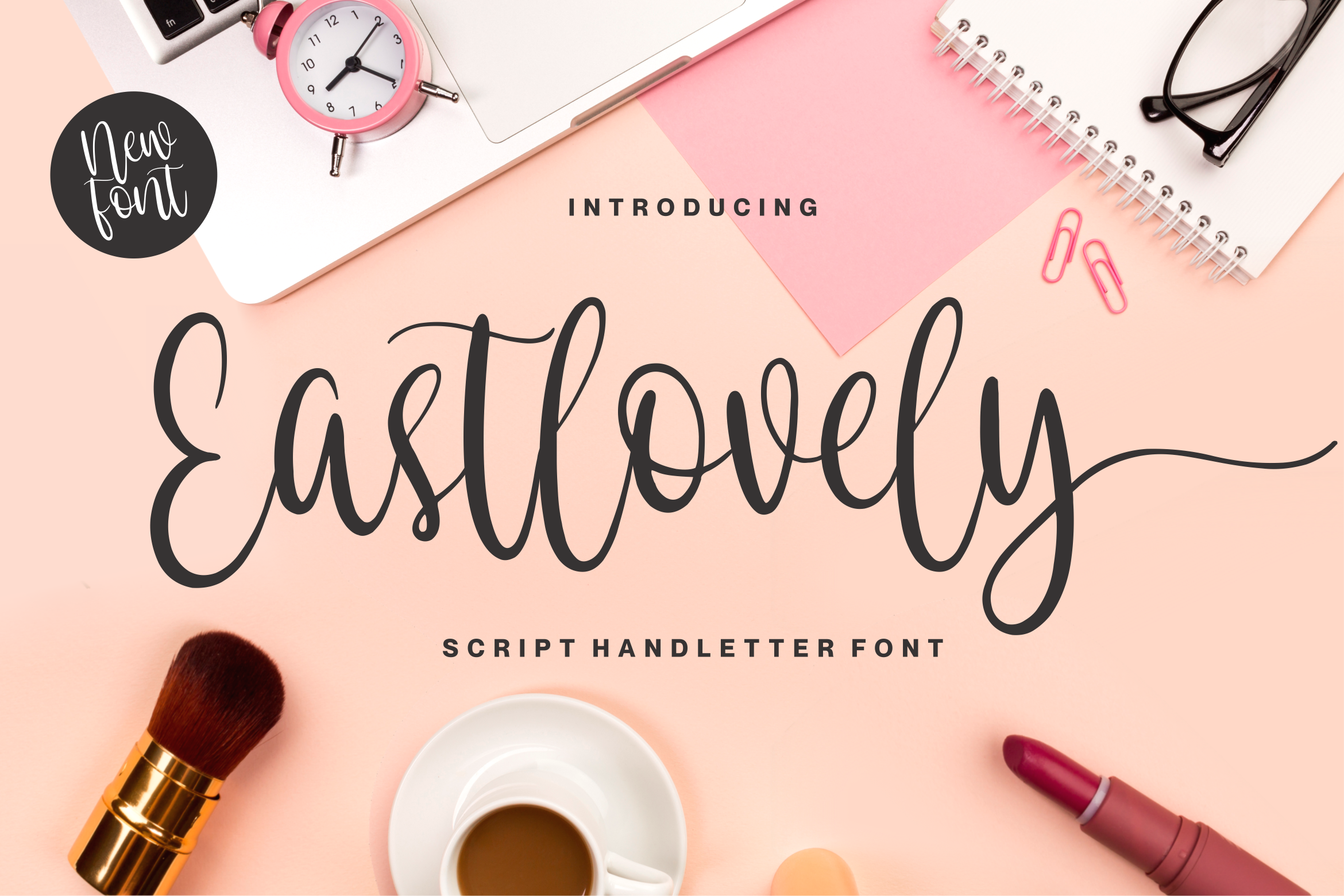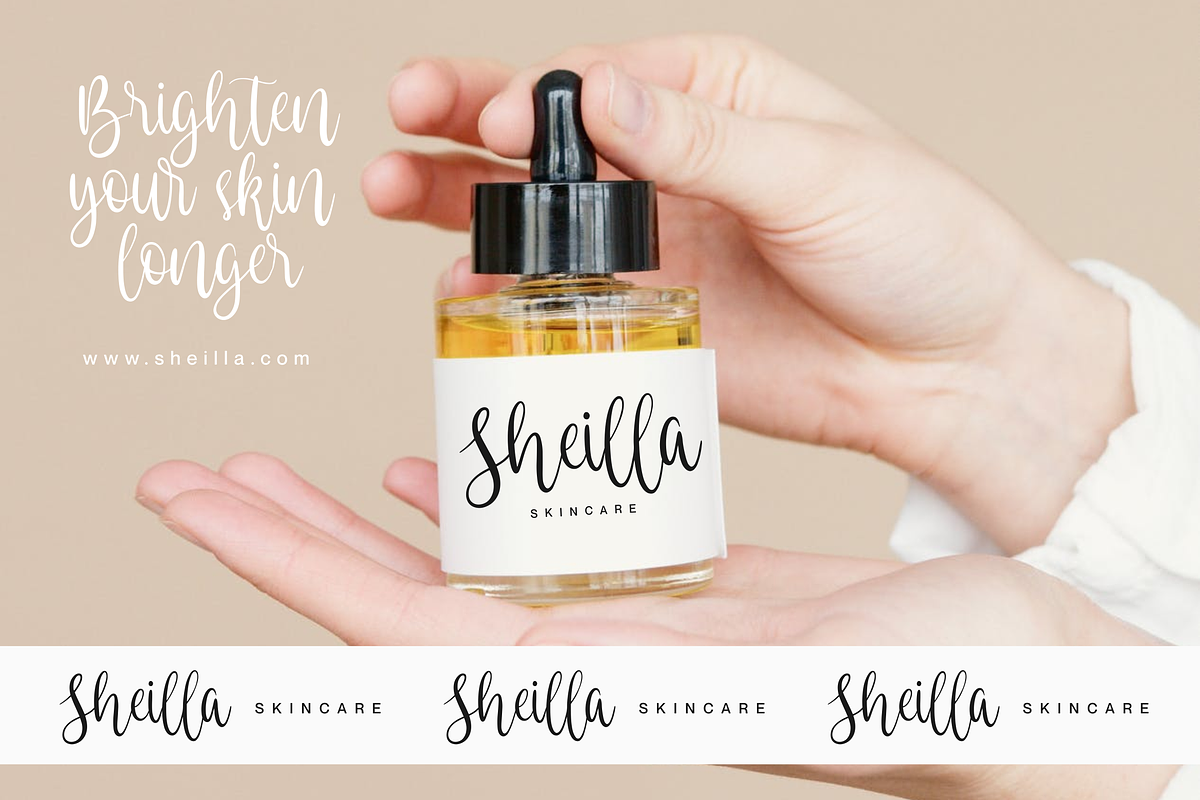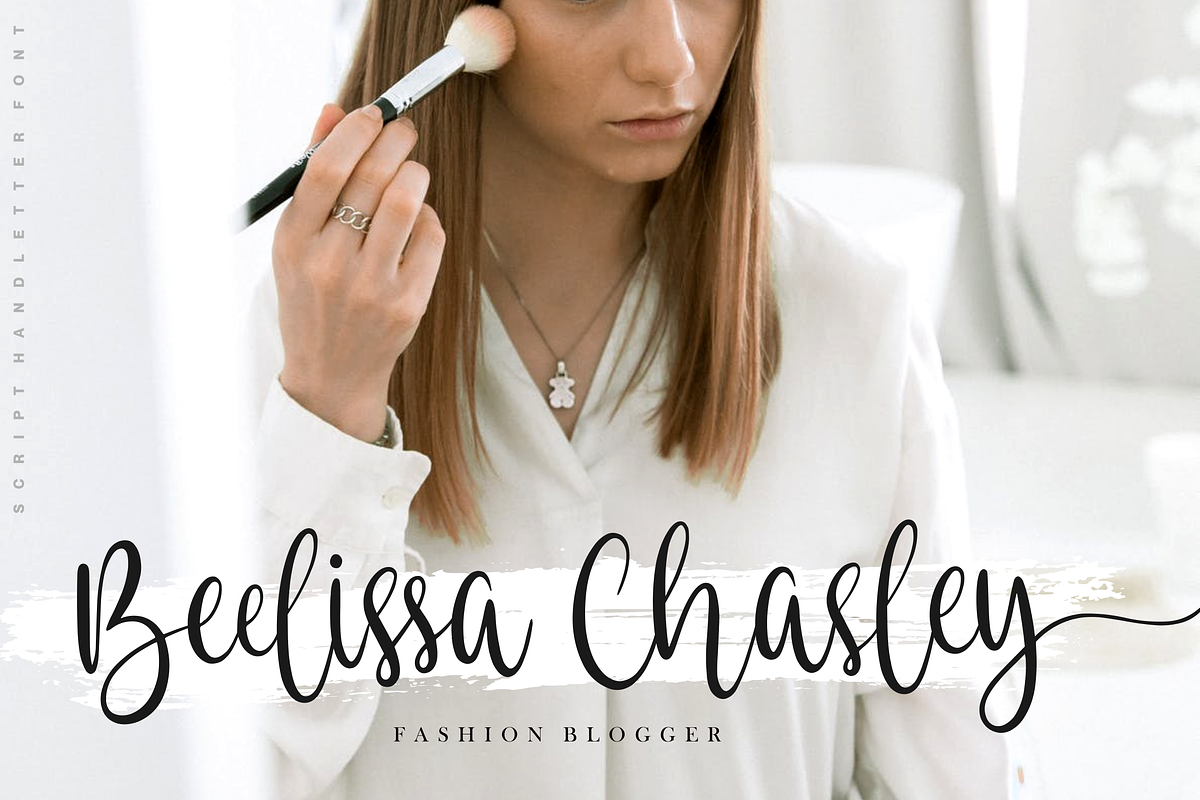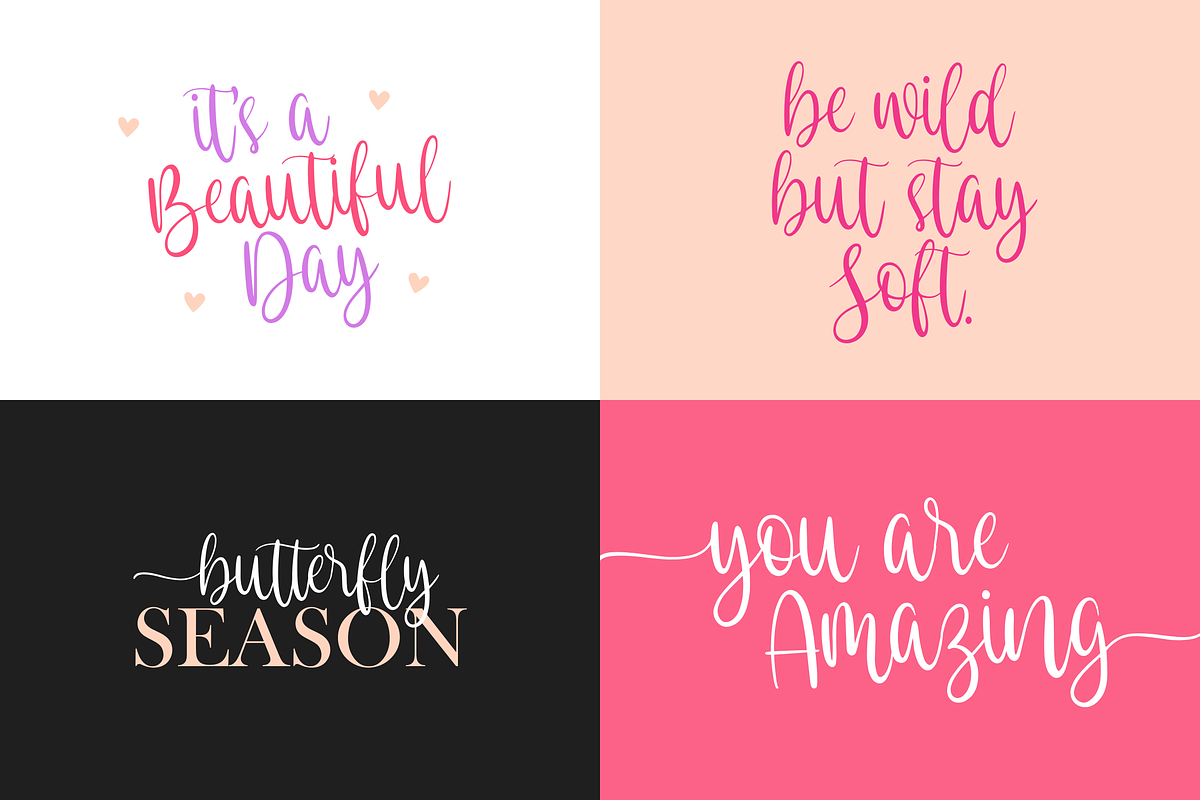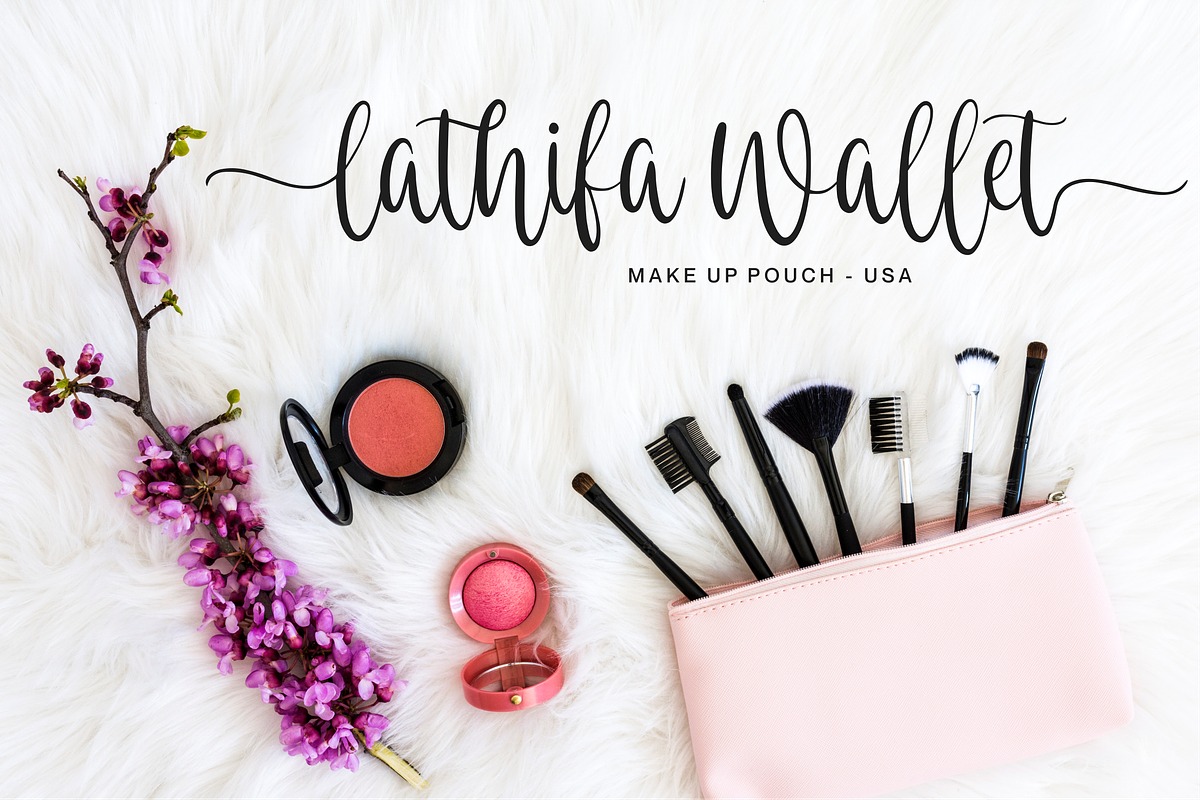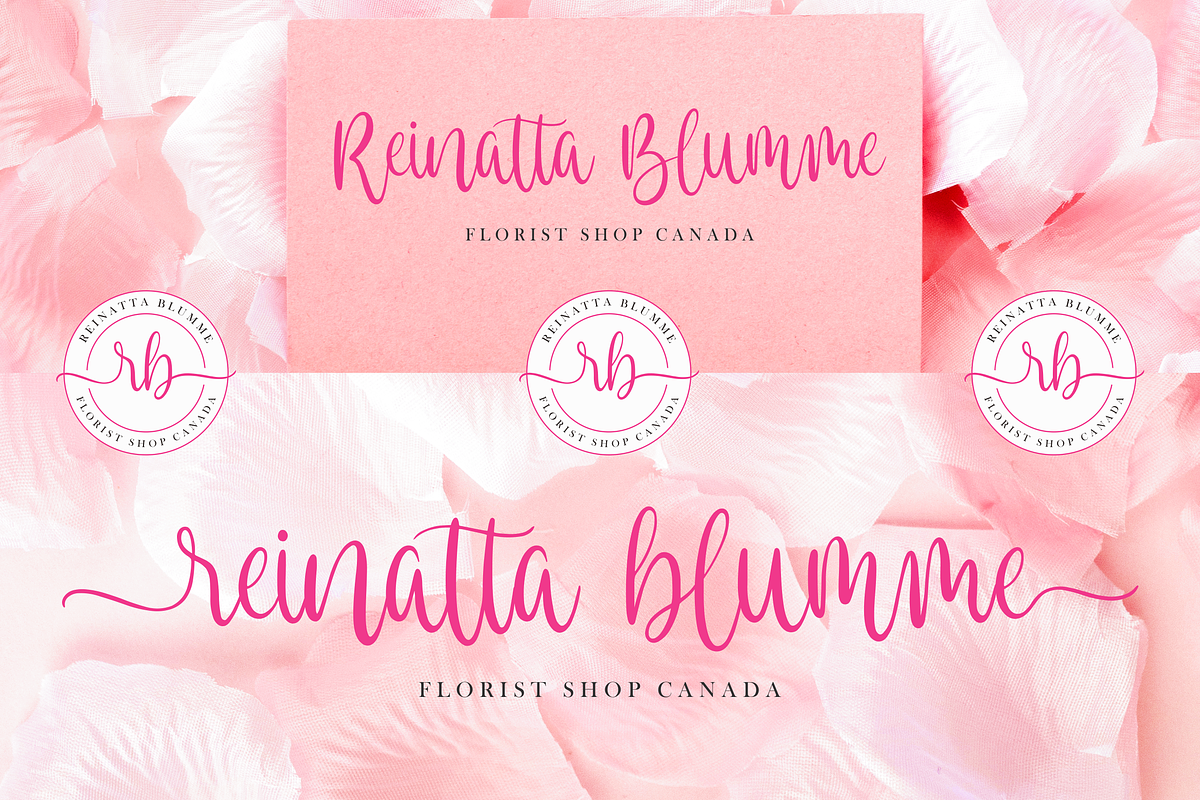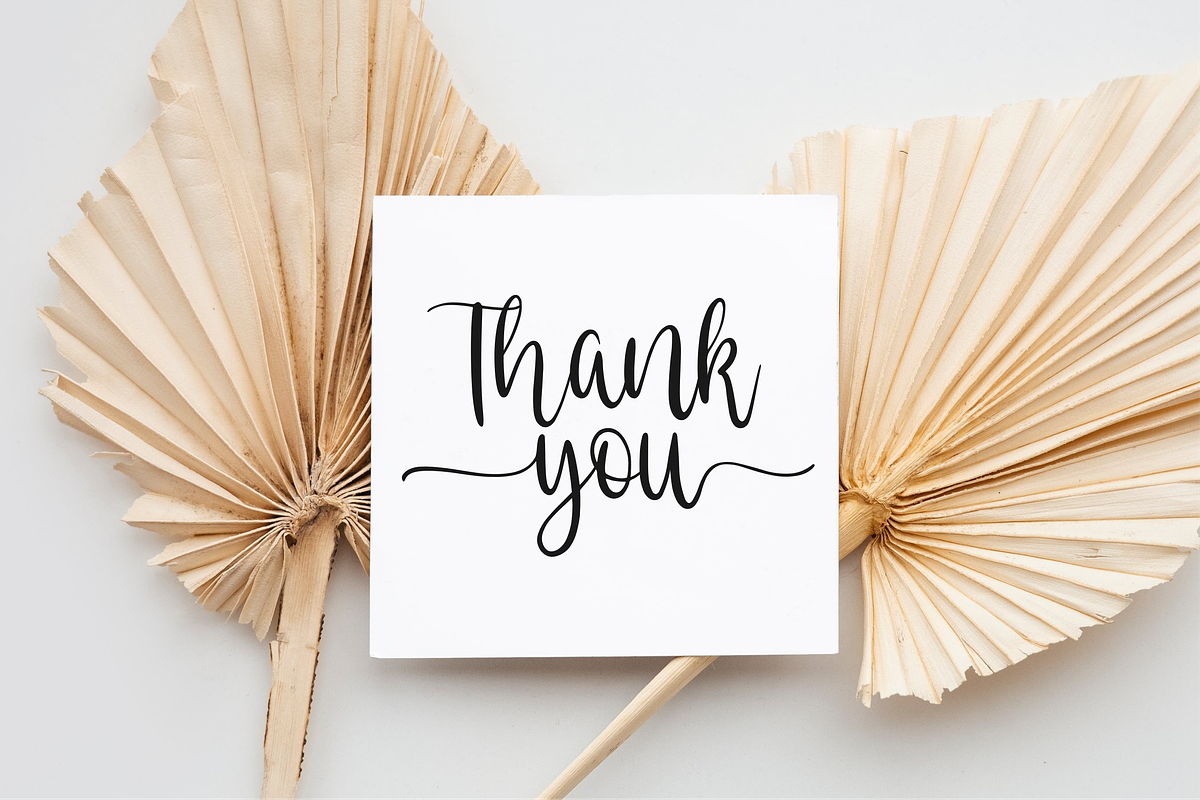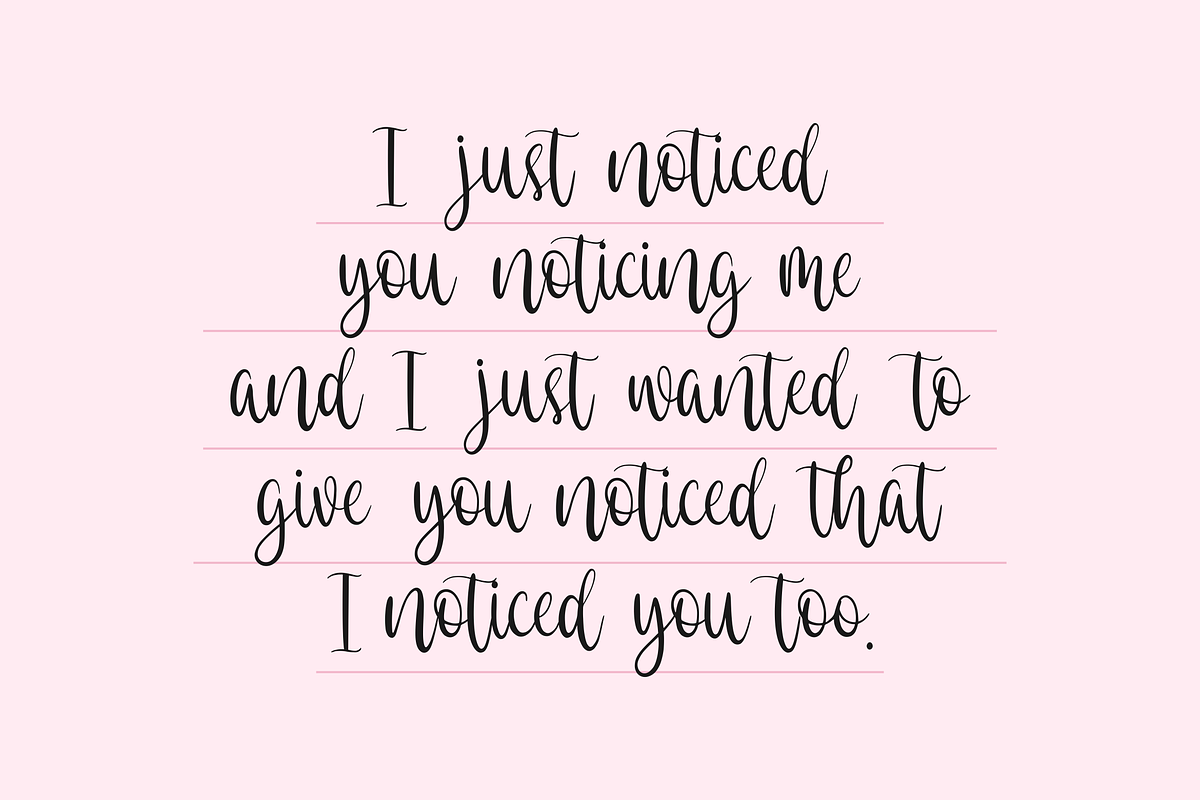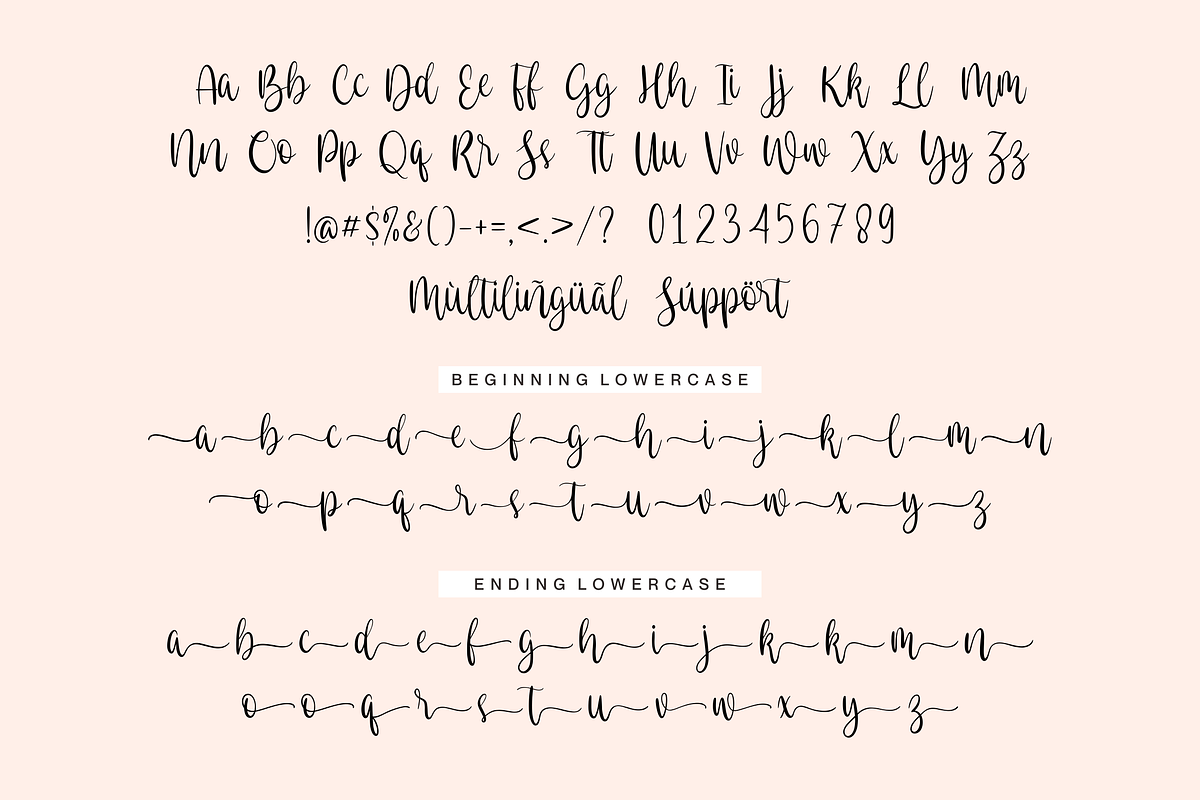
Eastlovely Bouncy Calligraphy Font
Proudly Presenting, Eastlovely a Script Handletter Font
Eastlovely is perfect for any titles, logo, product packaging, branding project, megazine, social media, wedding, or just used to express words above the background.
Eastlovely come with Multi-Lingual Support.